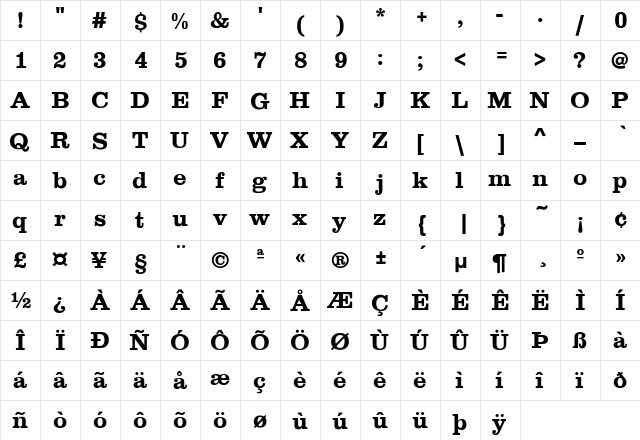
Canadian Bold Bold
Design Context for Canadian Bold Typeface
Canadian Bold takes a measured approach to typography — its balanced proportions and neutral character make it a reliable workhorse for both digital and print work. The heavy weight commands attention and anchors typographic hierarchies.